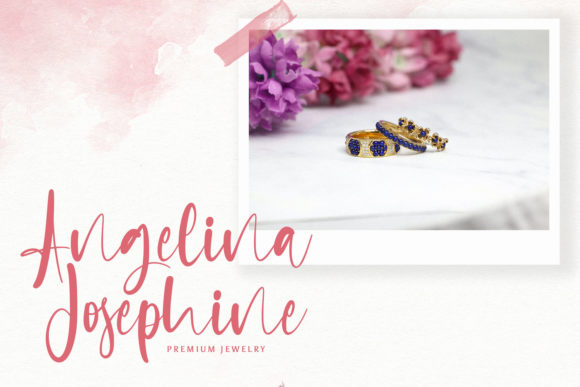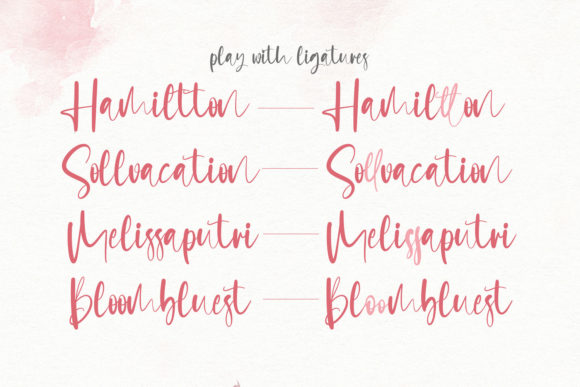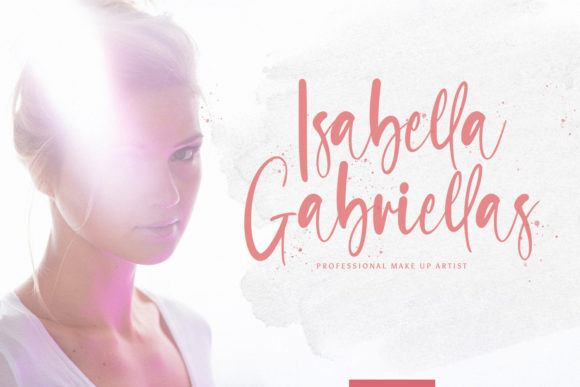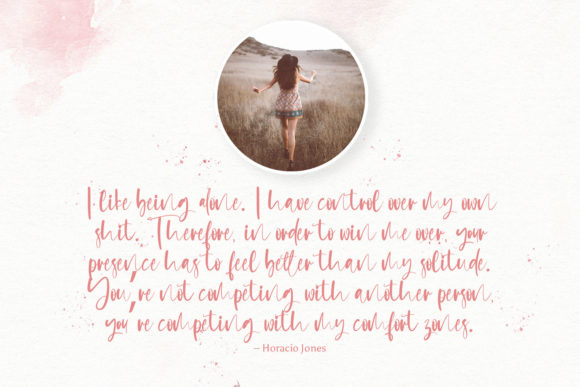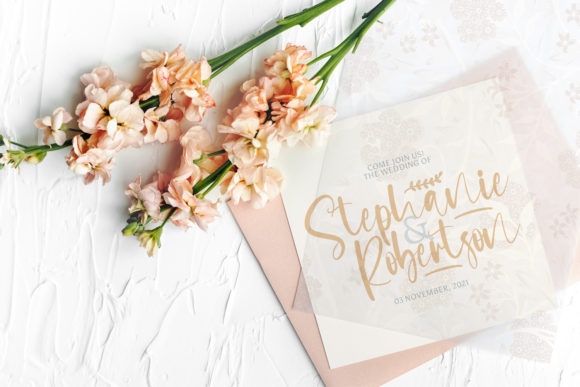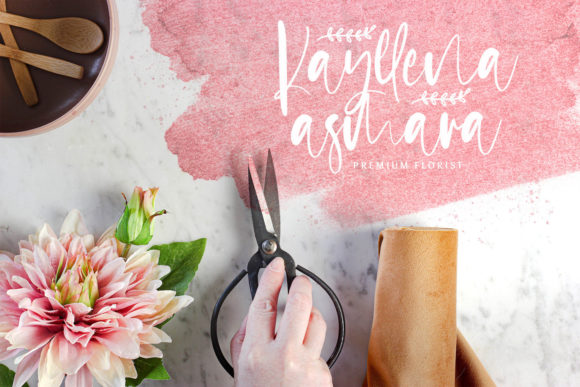
Introduction to Saturday Crush Font Font
Fonts play a crucial role in design, and the Saturday Crush Font font is a typeface that brings both character and versatility to any project. Whether you’re working on a branding project, a website, or a print design, the Saturday Crush Font font offers a unique style that can elevate your work.
Saturday Crush is a lovely script font featuring charming, playful characters that seem to dance along the baseline.
Add this font to your most creative ideas, and notice how it makes them stand out .
Key Features of Saturday Crush Font Font
Why Choose Saturday Crush Font Font?
The Saturday Crush Font font is more than just a typeface – it’s a design tool that helps you communicate your message with style and clarity. Its unique character set and versatile design make it suitable for a wide range of applications, from elegant invitations to bold headlines.
With its carefully crafted letterforms and balanced proportions, the Saturday Crush Font font ensures readability and visual appeal across all mediums.
What makes Saturday Crush Font font special?
The Saturday Crush Font font stands out with its unique design, exceptional readability, and versatility across various design applications.